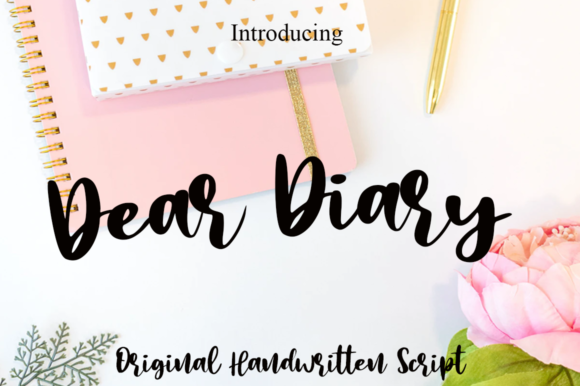
Unlocking the Whimsy of Dear Diary Font
Do you remember the thrill of writing your deepest secrets in a diary as a child? The feeling of pouring your heart out onto the page, the sound of your pen scratching against the paper, and the sense of freedom that came with unloading your thoughts? For many of us, that nostalgic feeling is what inspires our creative pursuits today.
For designers, finding the perfect font to evoke that same sense of wonder and whimsy can be a challenge. That’s where Dear Diary Font comes in – a charming handwriting font that captures the essence of classic style while maintaining a friendly, approachable feel. Whether you’re creating a custom logo, designing a children’s book, or crafting a social media campaign, Dear Diary Font is the perfect choice to add a touch of personality to your work.
With its versatility and charm, Dear Diary Font is a valuable addition to any designer’s toolkit. By incorporating this delightful font into your designs, you’ll be able to create original and outstanding projects that leave a lasting impression on your audience.
Dear Diary Font Key Features
- Font Family: A handwritten, cursive script font designed to resemble handwriting
- Unique Characteristics: Includes ligatures, swashes, and flourishes to create a personal and expressive feel
- Language Support: Supports a wide range of languages, including Latin, Greek, Cyrillic, and more
- Font Style Options: Includes regular, bold, italic, and bold italic styles for versatility
Dear Diary Font Review
I recently had the chance to work with the Dear Diary Font, and I must say it’s a delightful addition to any design project. ✨ The font’s playful, cursive script immediately evokes a sense of nostalgia and intimacy, making it perfect for personal or creative projects.
- The font’s varied letterforms and flourishes add a touch of whimsy and personality to text.
- The font is highly legible, even at smaller sizes, making it suitable for body text or headings.
- The Dear Diary Font comes in a range of weights, from light to bold, allowing for flexibility in design.
However, there are some limitations to consider: ⚠️ The font may not be the best choice for formal or professional projects, as its playful nature may come across as unprofessional. Additionally, the font’s cursive script can make it difficult to read at very small sizes or in low-light conditions.
Overall, I think the Dear Diary Font is a great choice for designers looking to add a touch of personality and whimsy to their projects. While it may not be suitable for every project, it’s a versatile and highly legible font that’s sure to delight.
The “Dear Diary Font” is perfect for creating a nostalgic and whimsical feel in your designs. Use it for:
- Personalized planners and journals
Remember to experiment with different font sizes and styles to achieve the desired look.
Alternatives to “Dear Diary Font” for Designers
Great Vibes is a beautiful, handwritten script font that adds a touch of elegance and sophistication to any design. It’s ideal for use in titles, quotes, and other display text where a personal touch is needed.
Compared to Dear Diary Font, Great Vibes has a more refined and polished look, making it suitable for a wider range of designs.
Pacifico is a modern script font with a relaxed, beachy vibe. It’s perfect for use in designs that require a casual, laid-back feel, such as restaurant menus, event invitations, or travel brochures.
Pacifico has a more fluid and organic look compared to Dear Diary Font, making it ideal for designs that need a sense of movement and flow.
Alex Brush is a elegant, handwritten font that exudes sophistication and refinement. It’s suitable for use in designs that require a touch of luxury, such as high-end branding, wedding invitations, or fine art prints.
Alex Brush has a more refined and precise look compared to Dear Diary Font, making it ideal for designs that require a high level of sophistication and elegance.